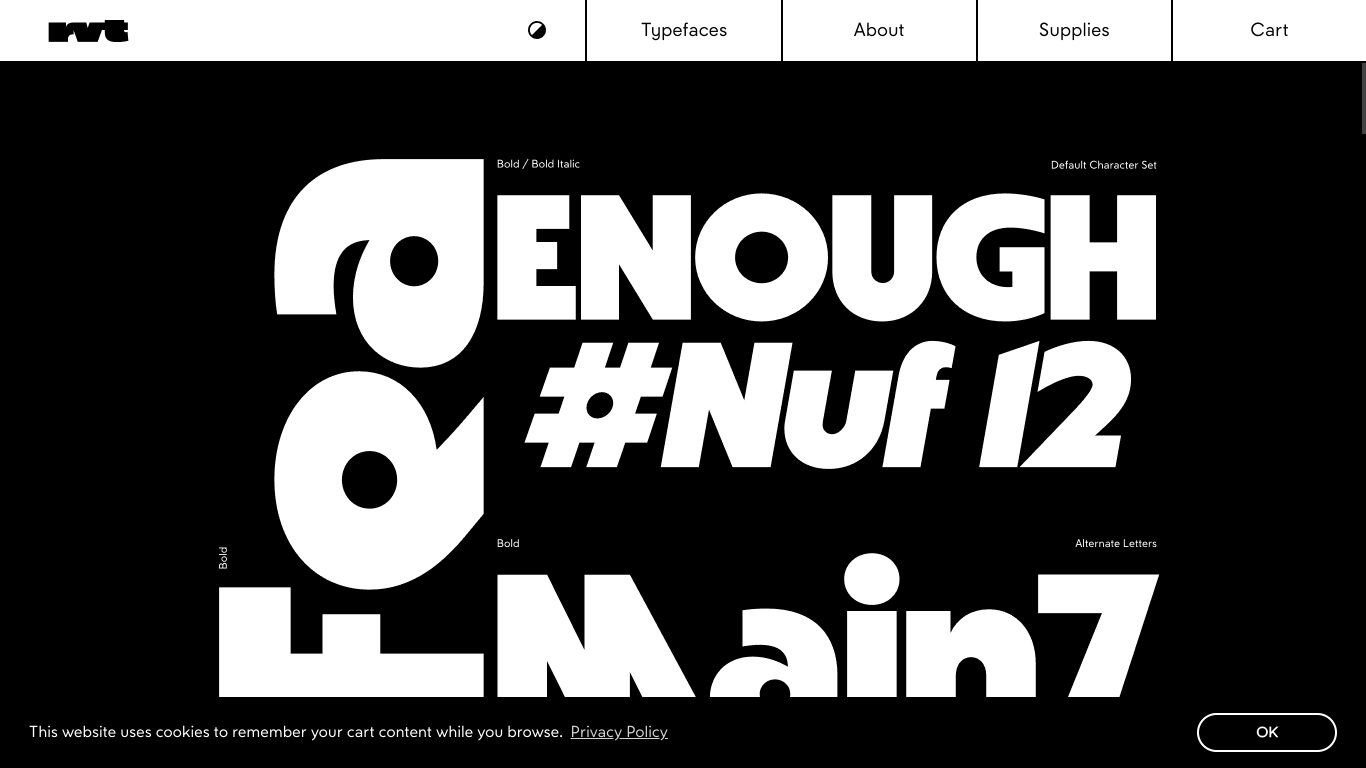
Road to Venice Type
Germany
2019
Road to Venice Type is a Dallas-based independent type foundry founded by René Rieger (Master’s in Applied Visual Arts). Established to design “in conversation with the history of type,” the studio crafts retail fonts like No. 43 Striated, No. 3 Series, Rhizome, and Plateau Five. Rieger’s work is research-driven, blending historical letter models with contemporary utility. The foundry offers retail, custom design, and font production services, supporting trials, multilingual licensing, and student discounts. What makes Road to Venice Type unique is its thoughtful fusion of typographic history and functionality—each font is drawn with care to explore authorship, archetypal forms, and practical application.